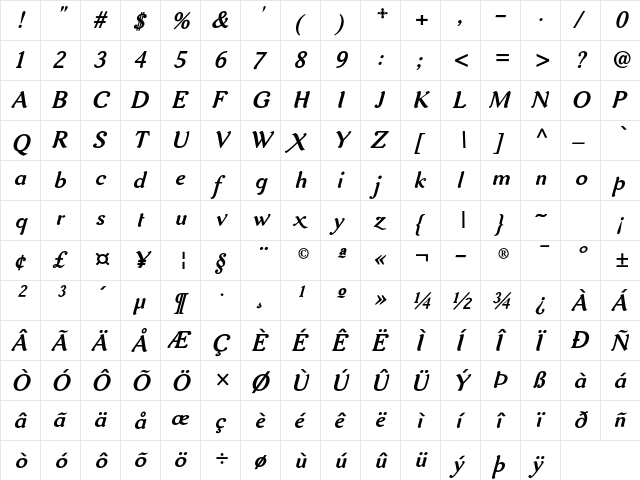
Aurelis ADF No2 Std Bold Italic
| Foundry | Arkandis Digital Foundry. |
| Designer | Hirwen HARENDAL |
Design Context for Aurelis ADF No2 Std Typeface
Aurelis ADF No2 Std is a composed and adaptable typeface that performs quietly and consistently across a wide range of design contexts. The dynamic lean of this cut emphasises speed and emphasis in any layout. Its bold stroke weight gives it real presence on the page.